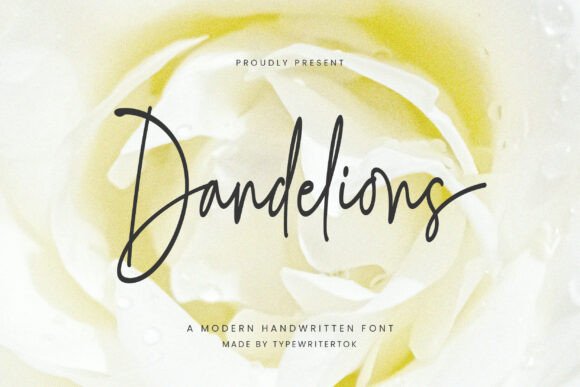
Dandelions Font: Elevate Your Design with Elegance and Charm
In the world of typography, fonts play a crucial role in conveying the tone and personality of a brand or design. Among the numerous fonts available, Dandelions font stands out for its modern handwritten style, exuding elegance and charm. This versatile font is perfect for a wide range of design applications, from branding and wedding invitations to greeting cards, logos, social media posts, and packaging design.
The Unique Characteristics of Dandelions Font
Dandelions font is a modern handwritten font that boasts fluid strokes and a contemporary style. Its natural and graceful appearance makes it an ideal choice for projects that require a personal and sophisticated touch. The font’s unique characteristics include:
- Fluid Strokes: Dandelions font features smooth, flowing strokes that give it a dynamic and elegant feel.
- Contemporary Style: The font’s modern design makes it perfect for projects that require a fresh and up-to-date look.
- Elegant and Charming: Dandelions font exudes a sense of sophistication and charm, making it ideal for high-end branding and design applications.
Design Applications for Dandelions Font
Dandelions font is a versatile typeface that can be used in a wide range of design applications. Some of the most popular uses for this font include:
- Branding: Dandelions font is perfect for creating a unique and memorable brand identity. Its elegant and charming style makes it ideal for luxury brands, fashion labels, and high-end businesses.
- Wedding Invitations: The font’s sophisticated and romantic style makes it perfect for wedding invitations, save-the-date cards, and other wedding-related design materials.
- Greeting Cards: Dandelions font is a great choice for designing greeting cards, including birthday cards, holiday cards, and thank-you cards.
- Logos: The font’s unique and memorable style makes it ideal for creating custom logos that stand out from the crowd.
- Social Media Posts: Dandelions font can be used to create engaging and stylish social media posts that grab attention and drive engagement.
- Packaging Design: The font’s elegant and charming style makes it perfect for packaging design, including labels, tags, and product packaging.
Why Choose Dandelions Font?
There are many reasons why designers and brands choose Dandelions font for their design projects. Some of the key benefits of using this font include:
- Unique and Memorable: Dandelions font is a unique and memorable typeface that can help brands and designers stand out from the crowd.
- Elegant and Charming: The font’s elegant and charming style makes it perfect for high-end branding and design applications.
- Versatile: Dandelions font can be used in a wide range of design applications, from branding and advertising to packaging and social media.
- Easy to Read: The font’s clear and legible design makes it easy to read, even at small sizes.
Tips for Using Dandelions Font
To get the most out of Dandelions font, here are some tips for using it in your design projects:
- Use it Sparingly: Dandelions font is a bold and eye-catching typeface, so use it sparingly to avoid overwhelming the design.
- Pair it with Other Fonts: The font pairs well with other fonts, including sans-serif and serif typefaces. Experiment with different font combinations to find the perfect look for your design.
- Adjust the Size and Color: Adjust the size and color of the font to suit the design and branding requirements.
- Experiment with Effects: Experiment with different effects, such as shadows and textures, to add depth and interest to the design.
Dandelions font is a modern handwritten font that exudes elegance and charm. Its fluid strokes and contemporary style make it perfect for a wide range of design applications, from branding and wedding invitations to greeting cards, logos, social media posts, and packaging design. With its unique and memorable style, Dandelions font is an excellent choice for designers and brands looking to elevate their design and create a lasting impression.